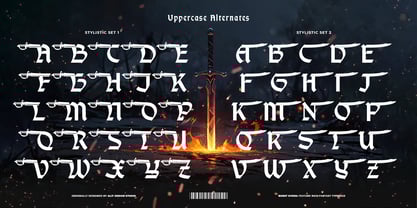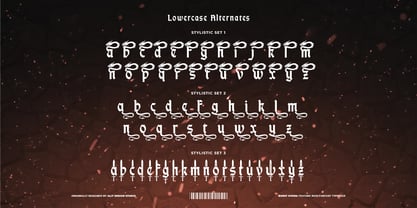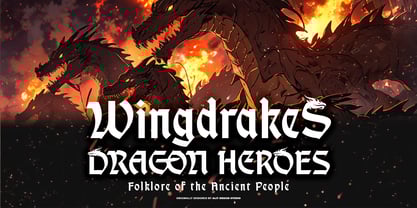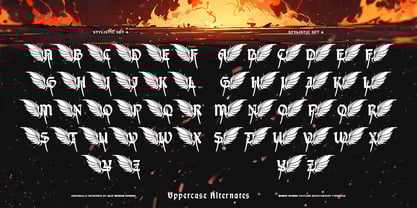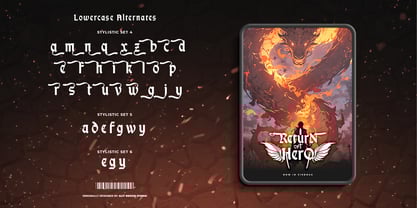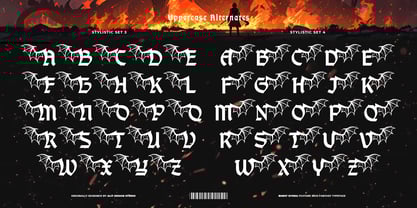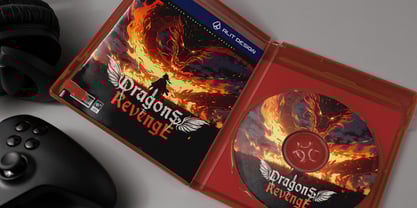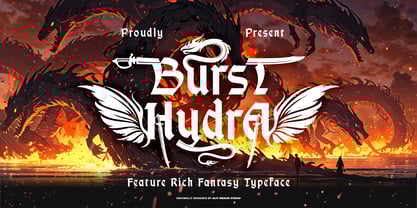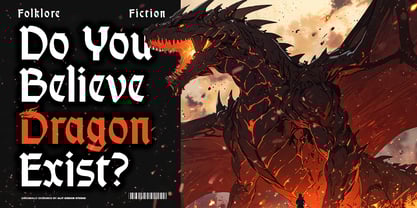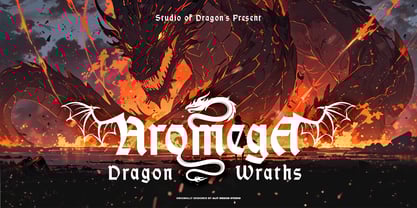
Burst Hydra
by Alit Design
The Burst Hydra Font Family was designed by Alit Suarnegara and published by Alit Design. Burst Hydra contains 1 styles. More about this family
Burst Hydra Font – Feature-Rich Fantasy Typeface
Unleash ancient power with Burst Hydra, a bold and heroic typeface inspired by myth and legend. Designed with an epic fantasy theme in mind, Brust Hydra blends semi-blackletter styling with serif elegance, delivering a commanding presence perfect for titles, logos, posters, game UI, and fantasy-themed branding.
Burst Hydra draws inspiration from the valor of Greek heroes and the fearsome strength of mythical beasts like the Hydra. Each letterform is forged with sharp edges and refined curves, evoking the armor, swords, and wings of warriors and legendary creatures. Decorative elements—such as sabers, flame motifs, and dragon insignias—enhance its visual storytelling, making it a centerpiece for any design that demands strength and sophistication.
Key Features:
• Unique fusion of blackletter and serif type styles
• Perfect for fantasy, mythology, gaming, and heroic themes
• Decorative alternates and symbols inspired by Greek legends
• High-impact uppercase and stylized lowercase forms
• Ideal for book covers, movie titles, posters, merchandise, and more
Proudly presented and originally designed by Alit Design Studio, Burst Hydra is more than just a font—it’s a visual saga waiting to be told.
Let your typography roar with mythic force. Choose Brust Hydra.